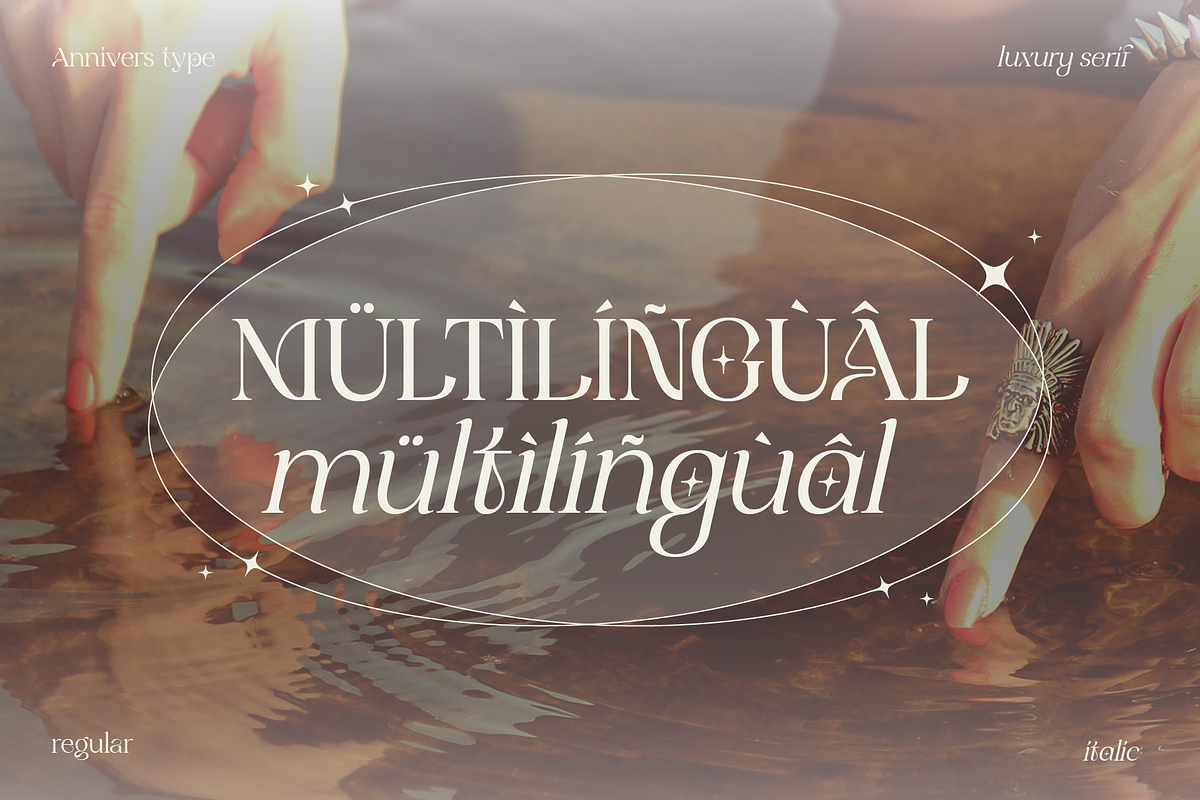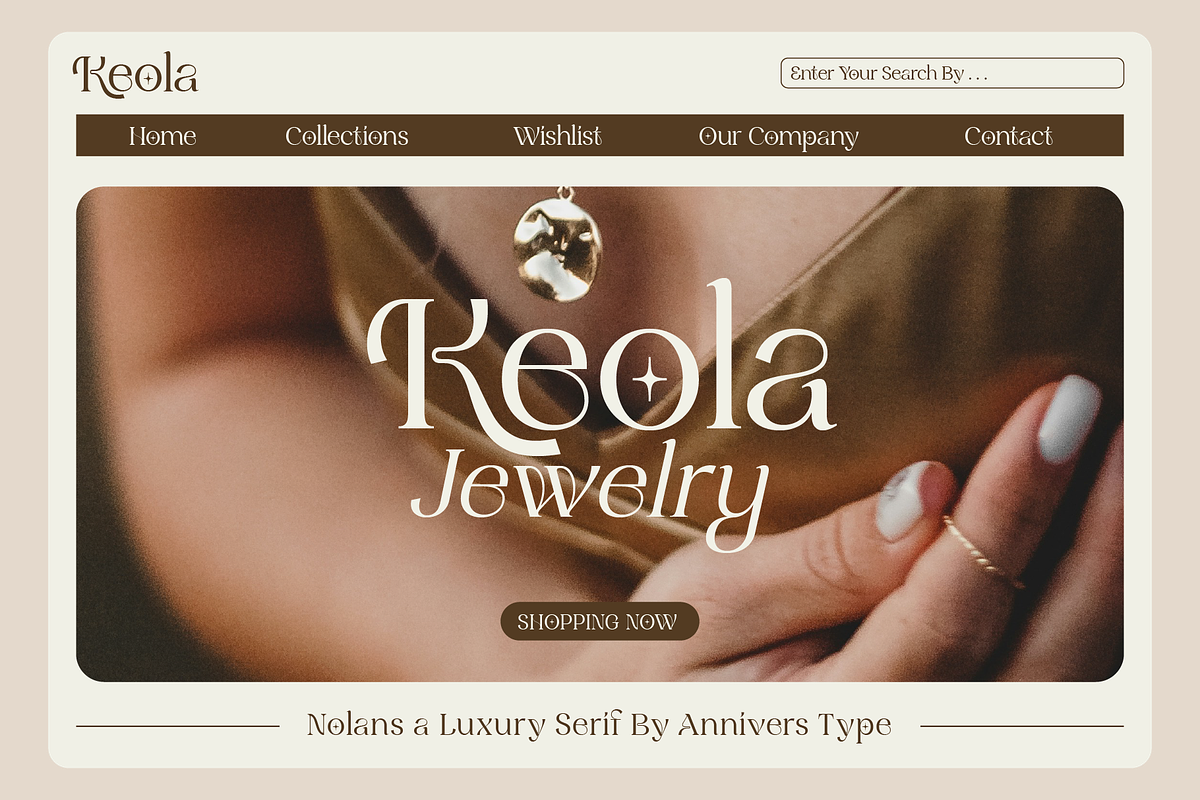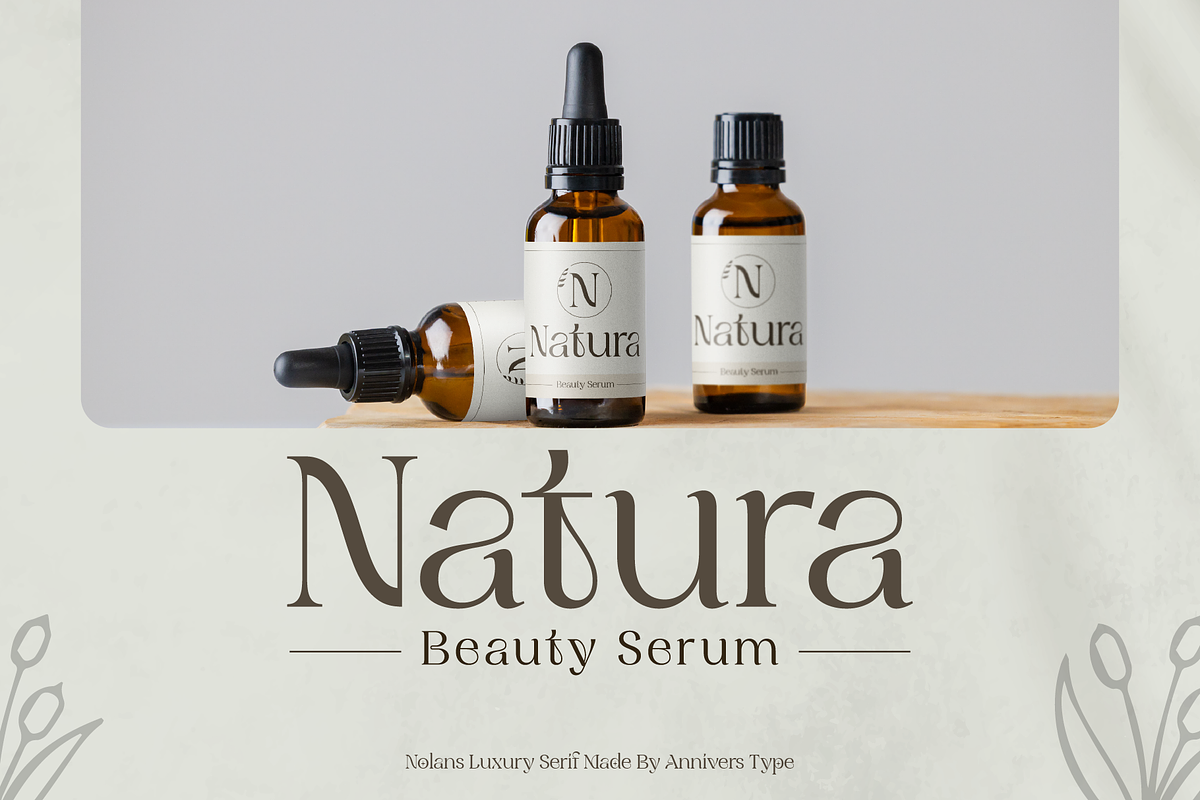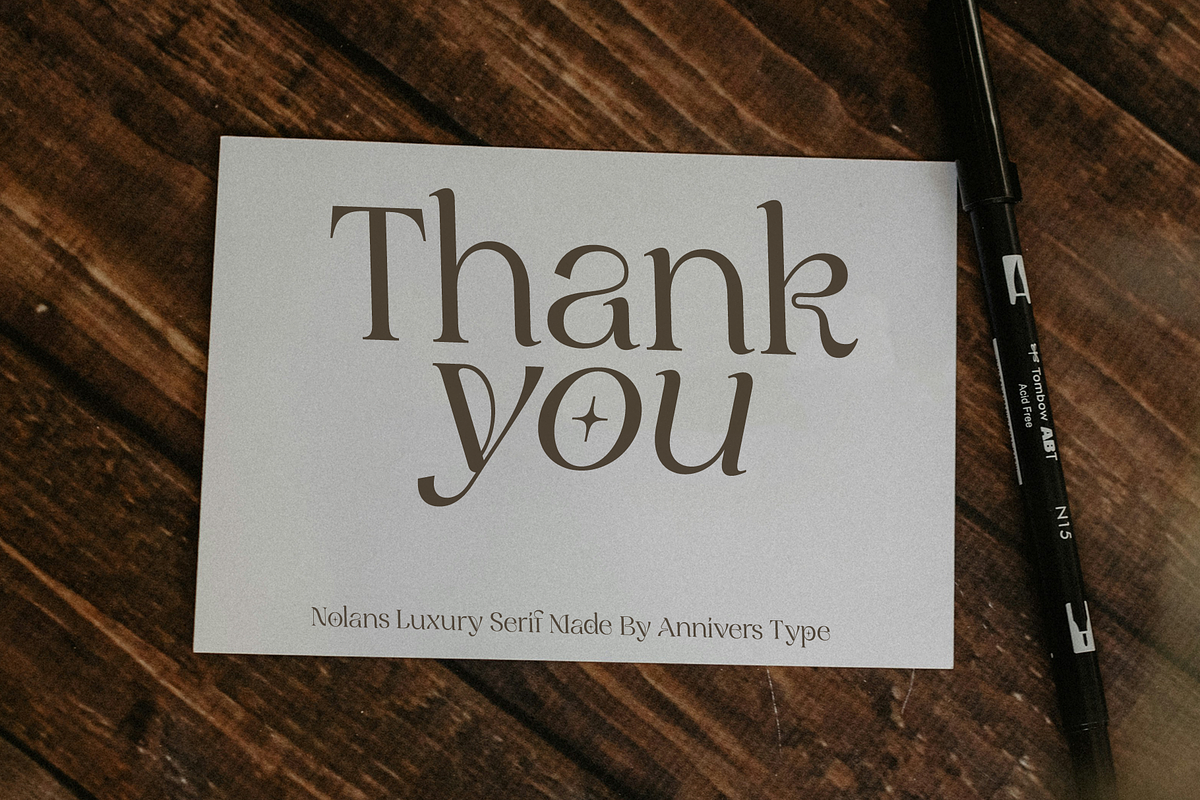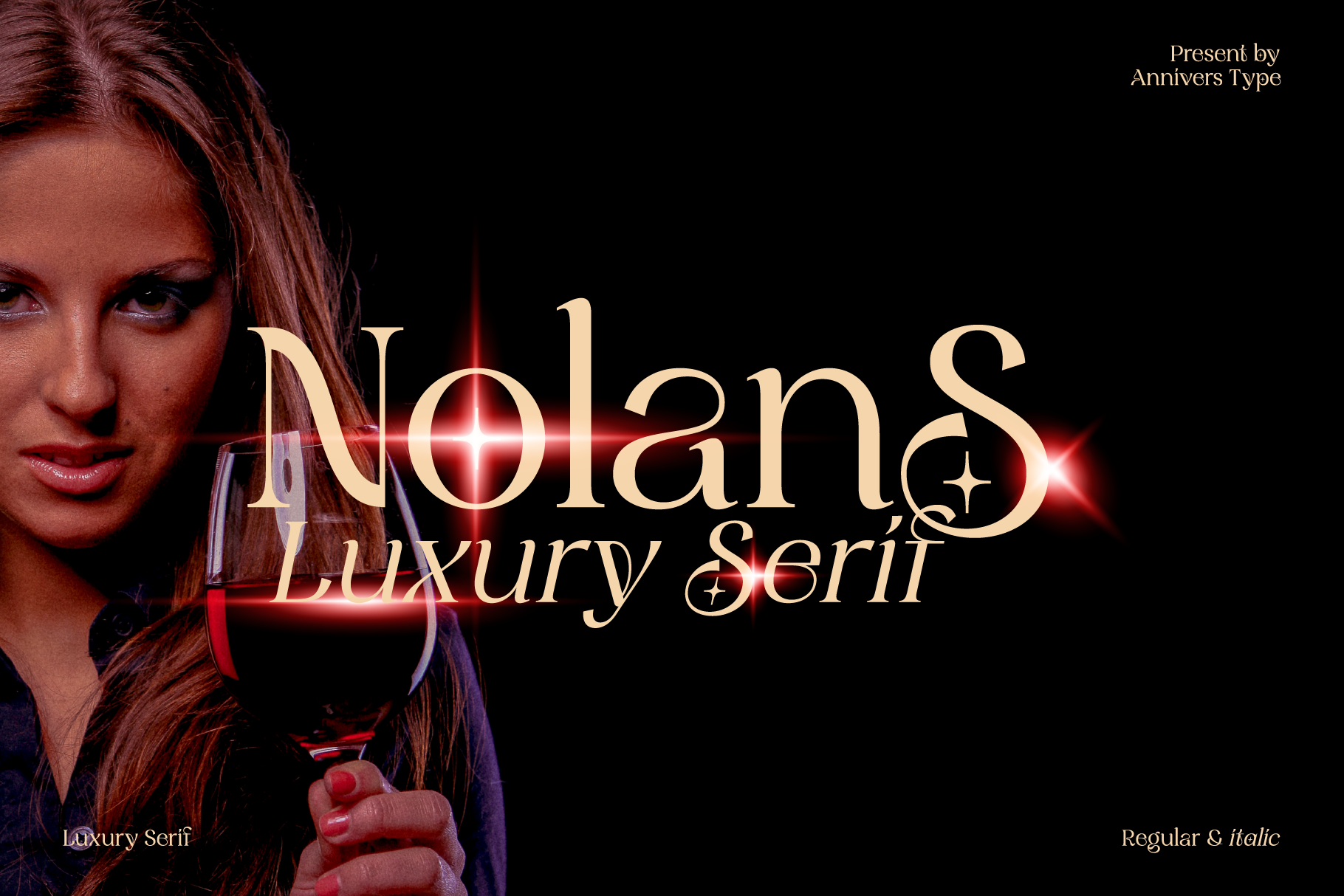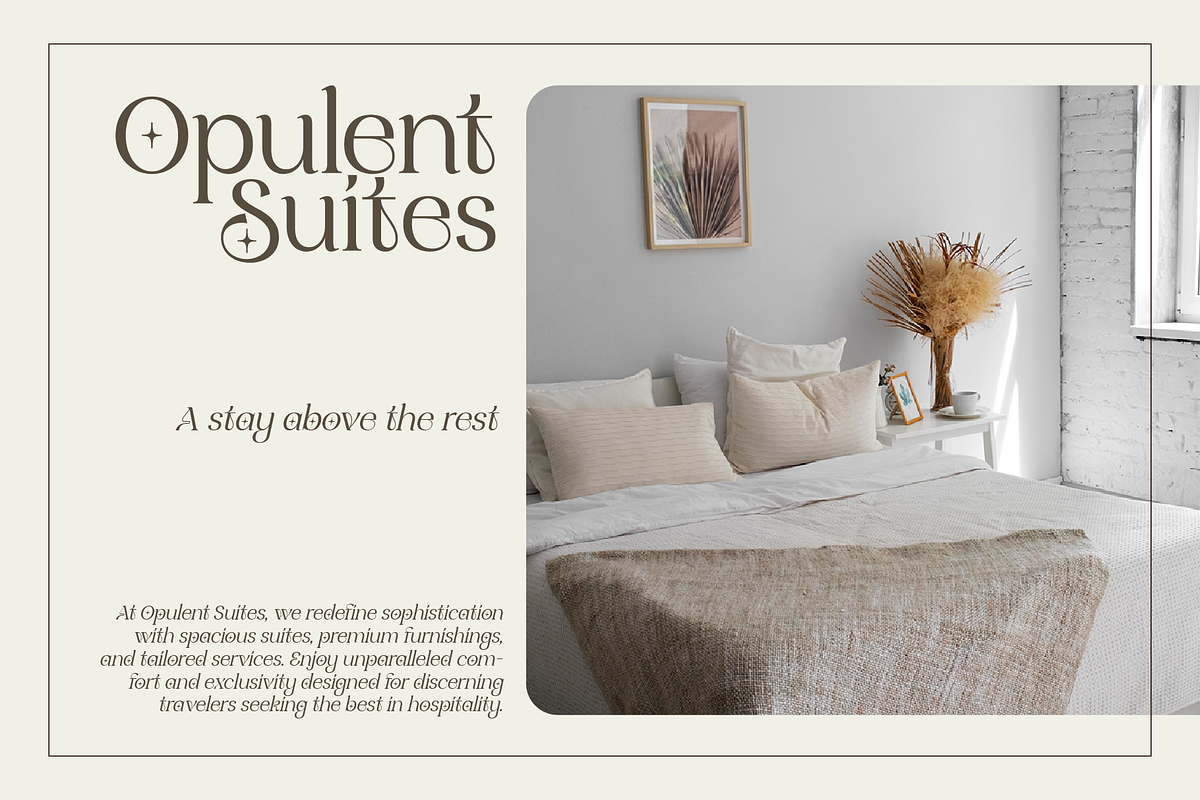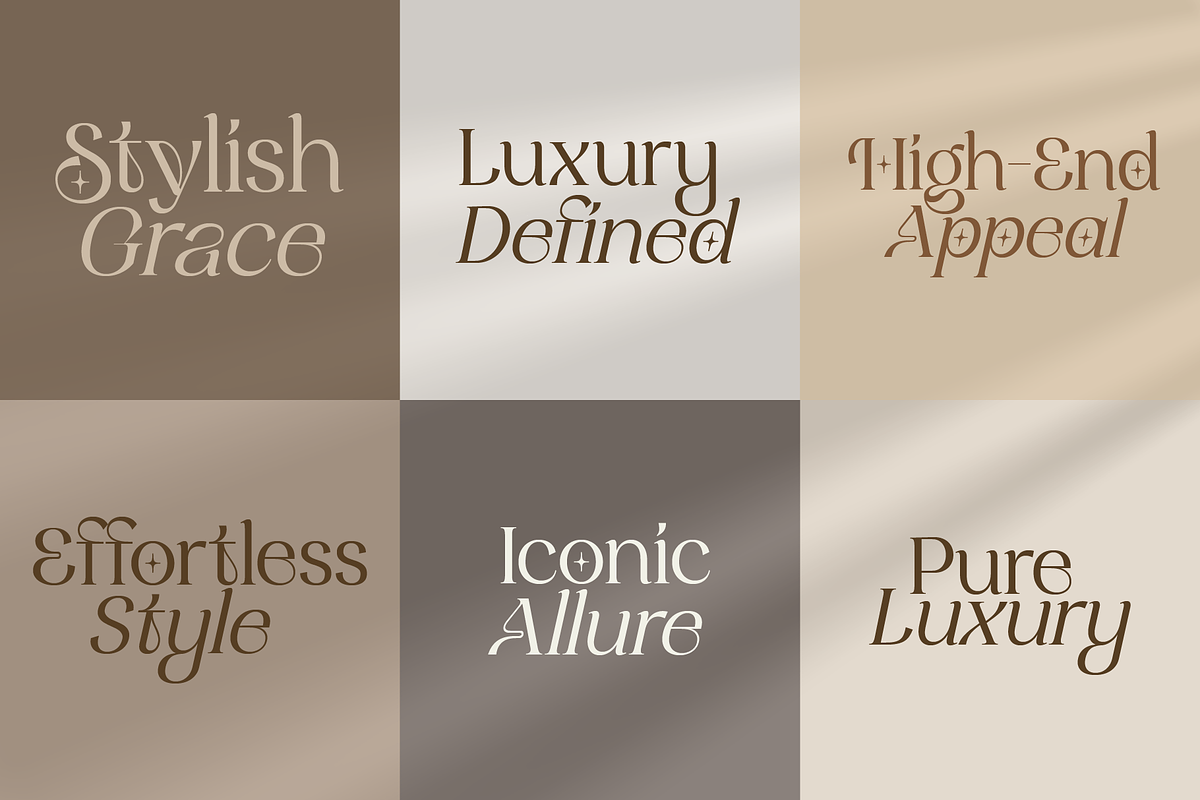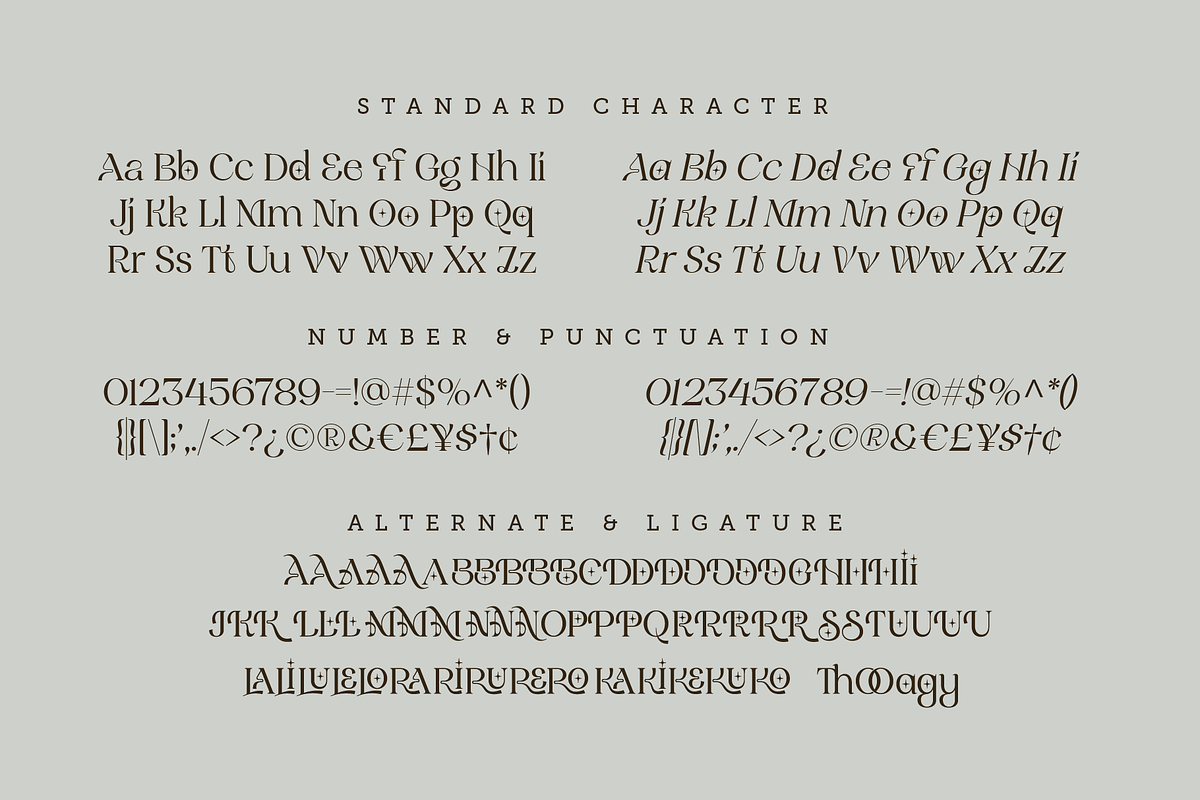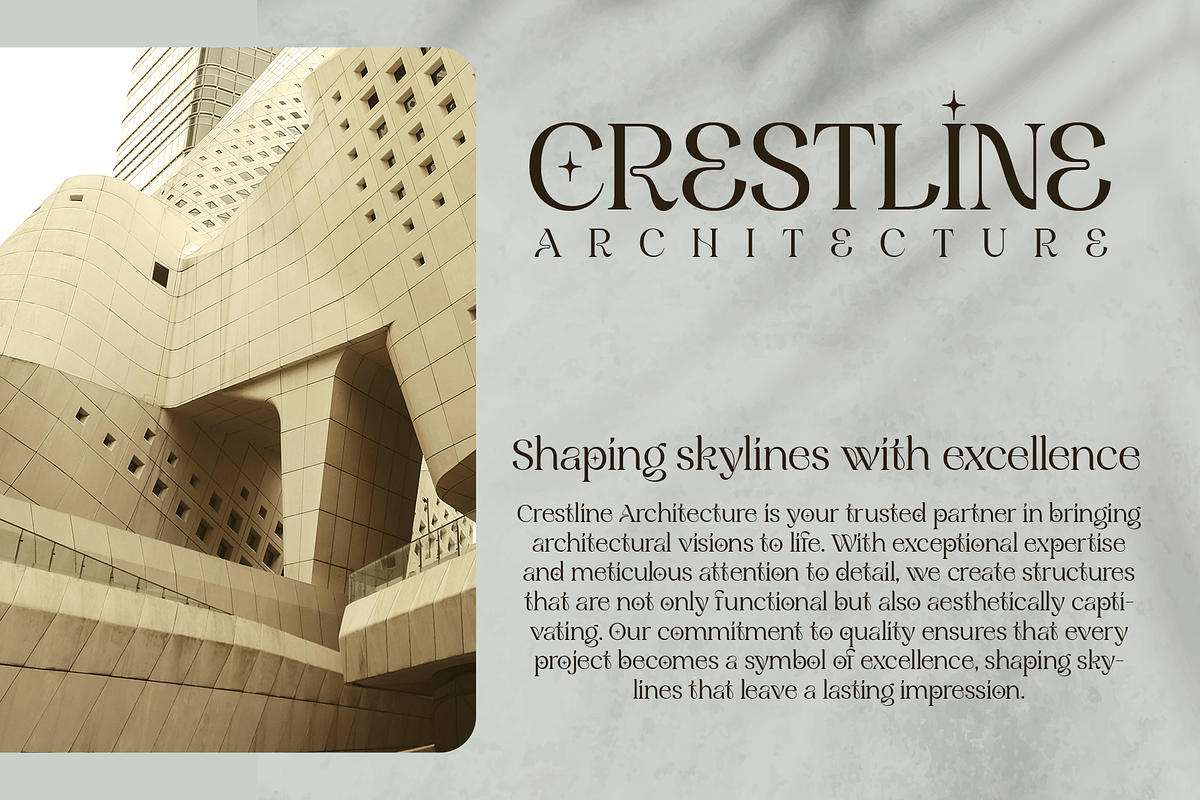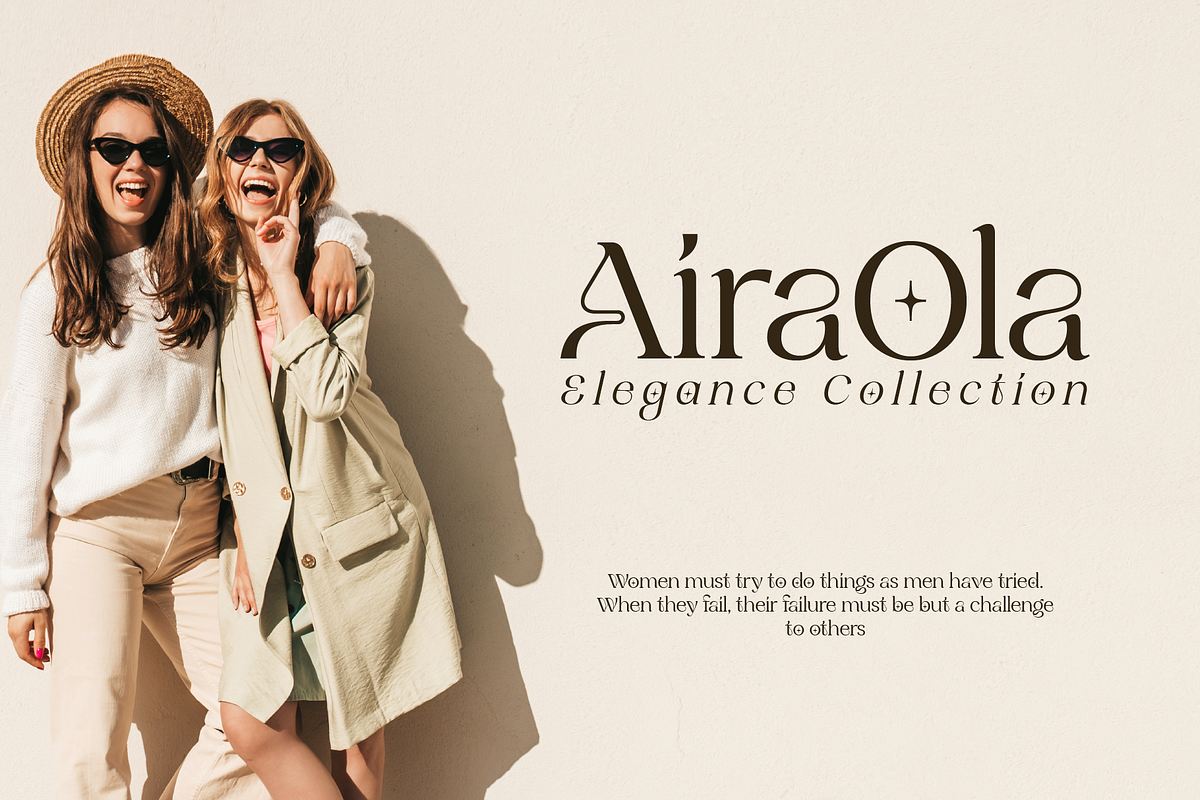
Nolans - Luxury Serif Typeface
Nolans Luxury Serif combines modern sophistication with timeless elegance, making it the perfect choice for upscale and stylish designs. Whether you're creating branding for luxury products, high-end fashion labels, or premium packaging, Nolans Luxury Serif adds a touch of class and refinement.
This font’s distinctive style is ideal for editorial layouts, wedding invitations, and business cards, providing a sense of exclusivity and charm. Nolans also shines in logos and headlines, offering a versatile yet elegant solution for designers aiming to evoke modern luxury.
Bring a touch of elegance to your designs with Nolans Luxury Serif—crafted to impress and captivate!
- uppercase and lowercase
- numerals and punctuation
- OpenType features (ligatures and alternates)